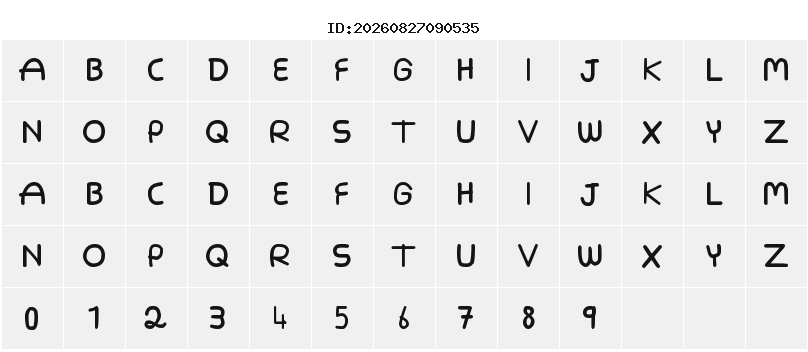
• Font Name: 3allamni
3allamni.ttf is a modern, elegant sans-serif font designed for ultimate readability and visual harmony. Perfect for branding, headlines, web design, and print materials.